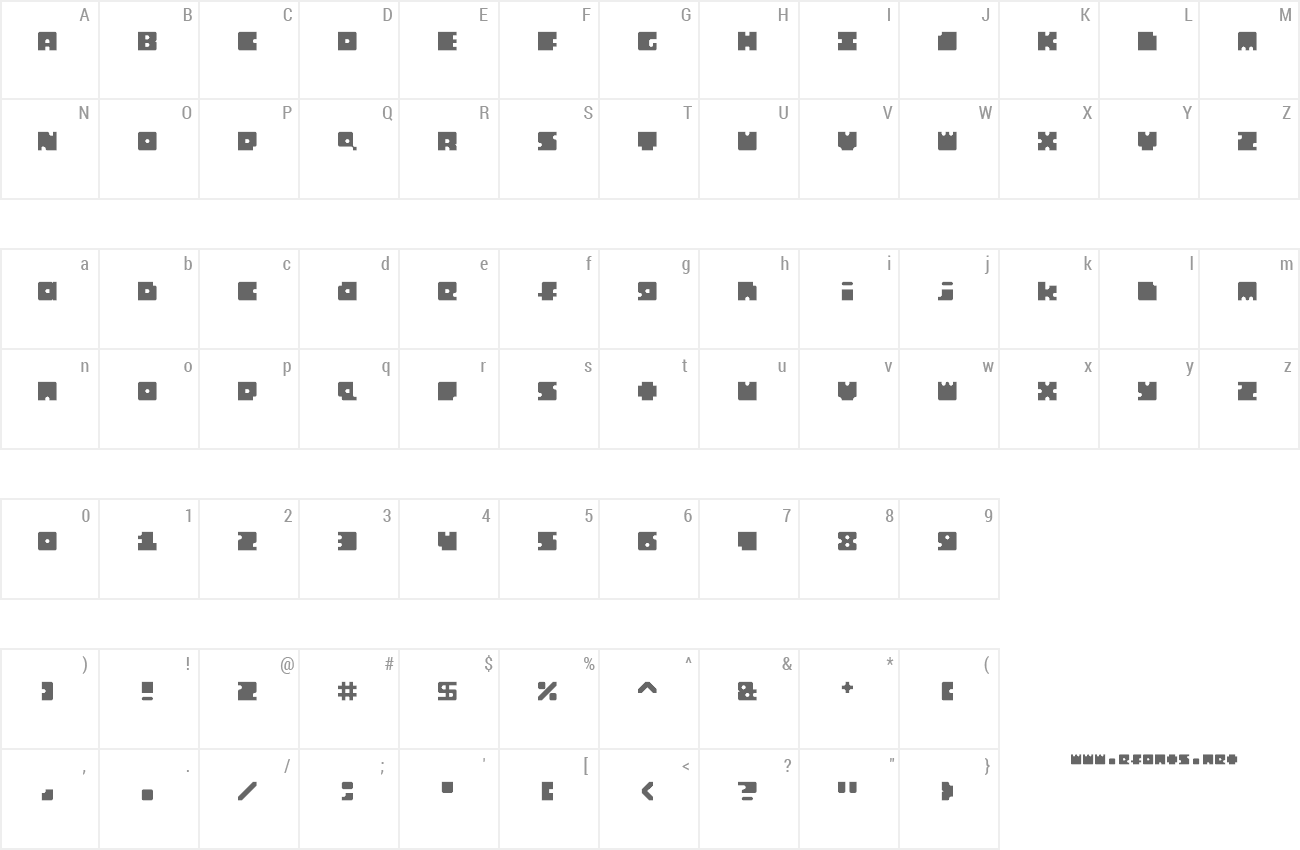
| Font name: | Monosquare |
| Author: | Nik Coughlin |
| Note by Nik Coughlin | |
| A monospaced font based around the idea of making recognizable characters by removing as little as possible from a square. Includes basic and extended Latin characters. |